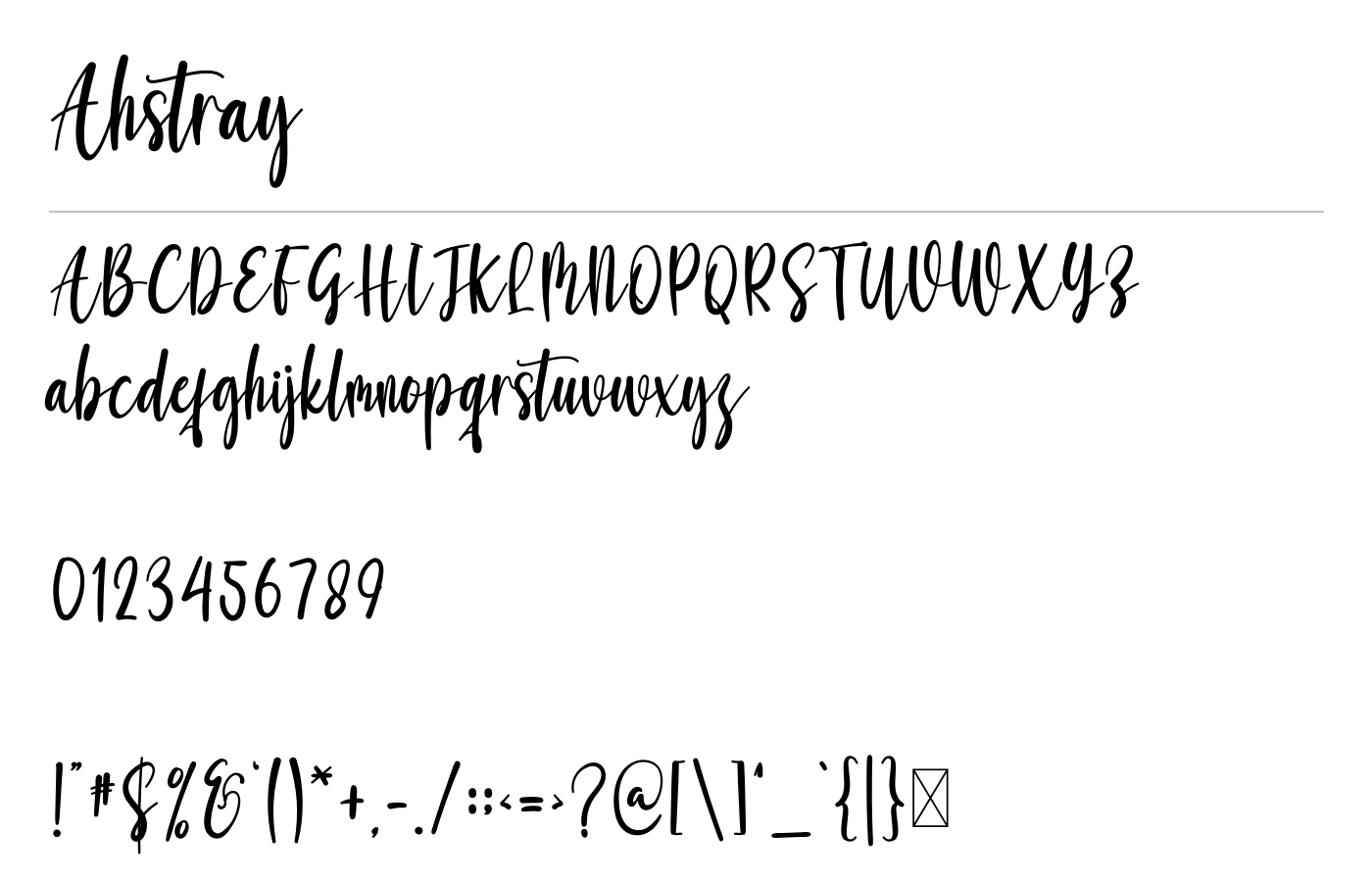
Ahstray is a playful and elegant handwritten script font with a natural, flowing style that feels personal and approachable. Its tall, slightly narrow letterforms and smooth, brush-like strokes make it perfect for creative projects, invitations, and branding that seeks a friendly yet stylish touch. This font works well for headlines, logos, and any design needing a warm, casual sophistication.
Ahstray Font